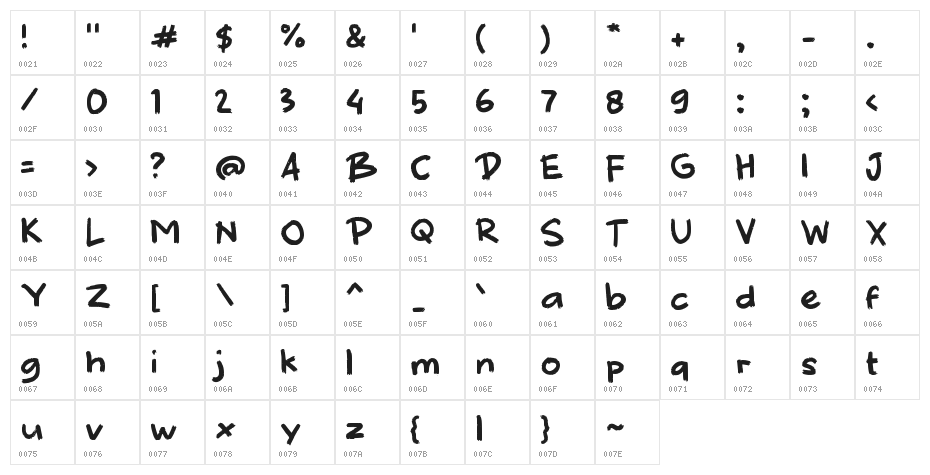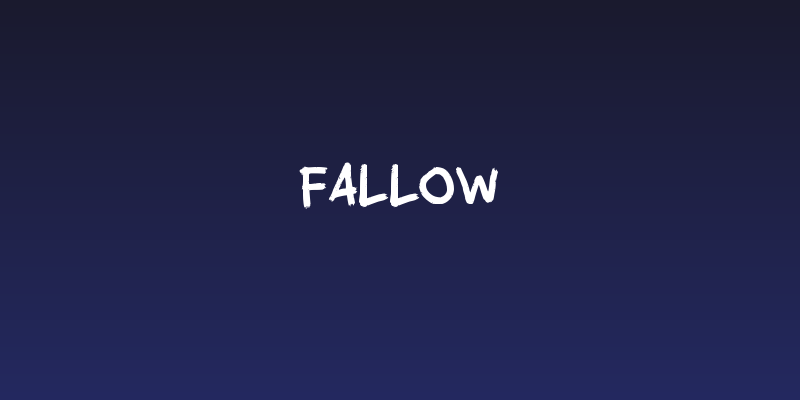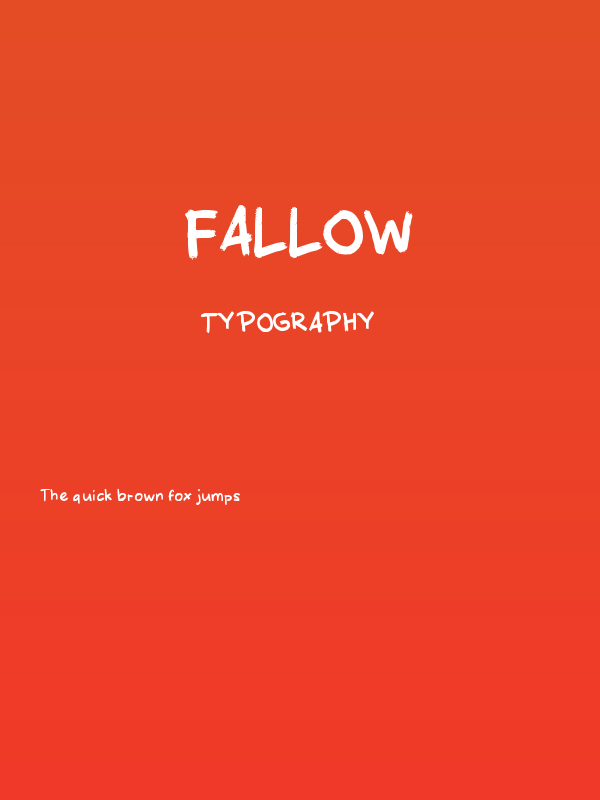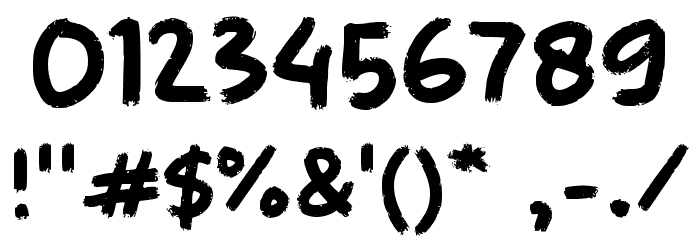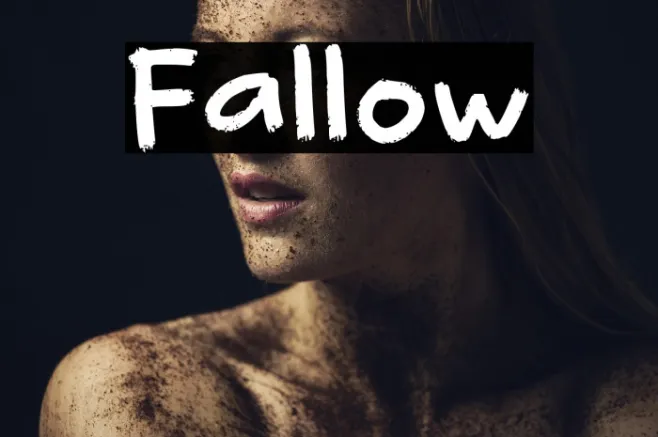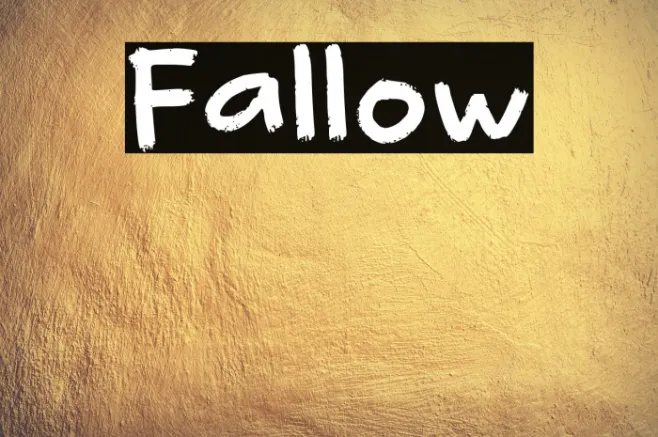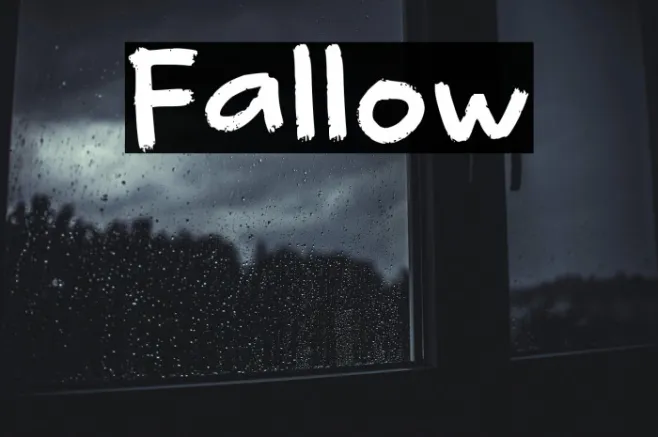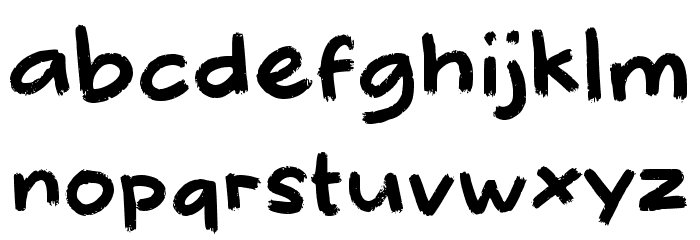
Fallow Font
Fallow Description
This font features a bold, brush-like style with a hand-drawn appearance, characterized by its irregular strokes and dynamic energy. The uppercase and lowercase letters maintain a consistent thickness, giving the font a cohesive look while still allowing for a playful and artistic feel. The numbers and special characters follow the same design principles, ensuring uniformity across all elements. The font's rough edges and varied line thicknesses add to its organic and expressive nature, making it ideal for projects that require a personal touch or a creative flair.
FALLOW UPPERCASE
FALLOW LOWERCASE
FALLOW OTHER CHARS
| Overall Style | Artistic, Expressive |
| Proposed Projects | Ideal for posters, artistic projects, branding, and any design requiring a creative, personal touch. |